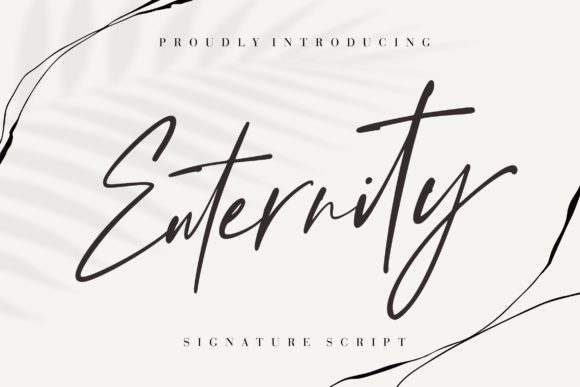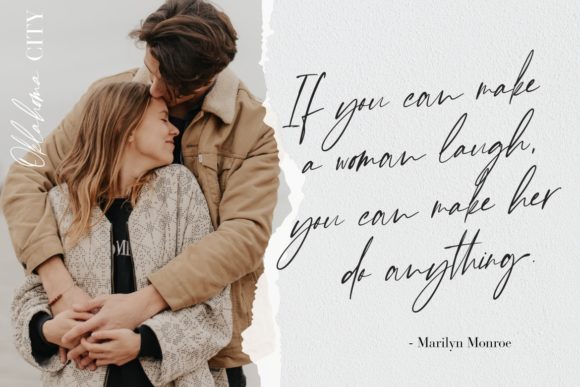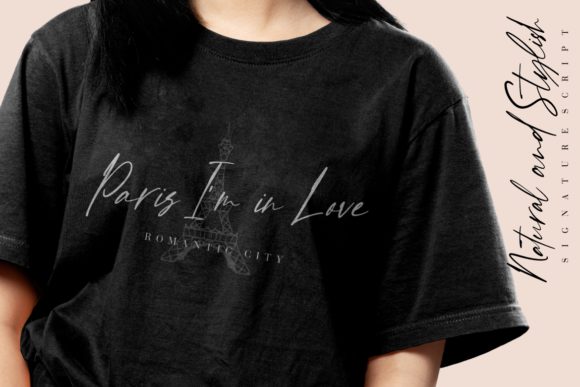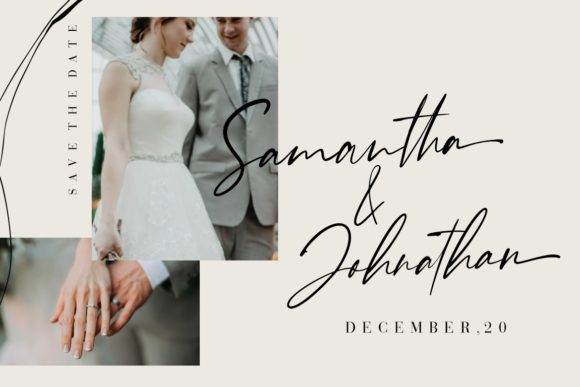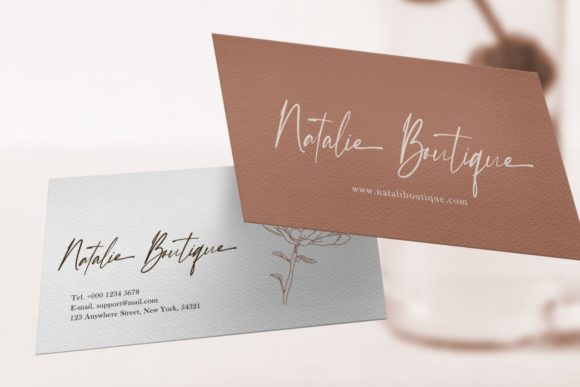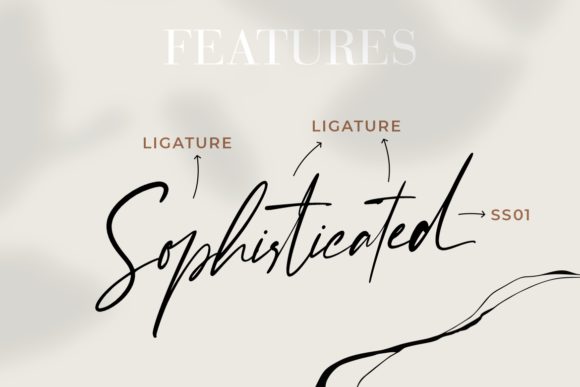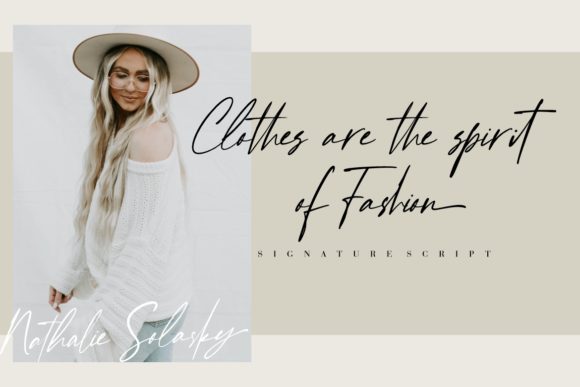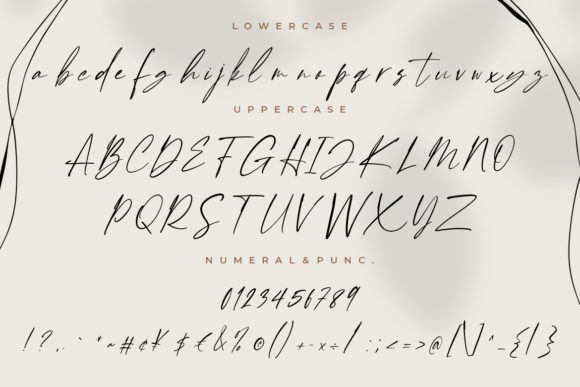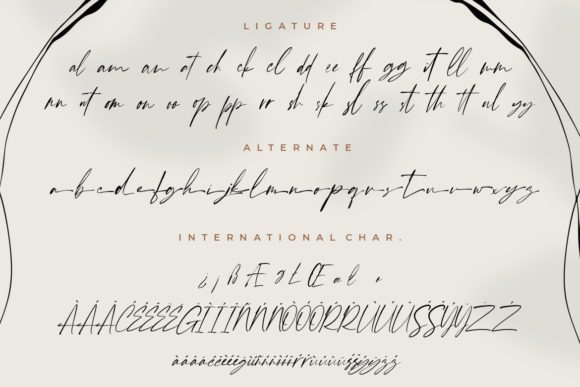
Enternity Font
Enternity is a luxurious and romantic calligraphy font that exudes elegance and sophistication. With its clean, thin, and smooth lines, this font brings a sense of refinement to any design project. Whether you’re working on branding, invitations, posters, or any other creative endeavor, Enternity is sure to make a lasting impression.
The font’s PUA encoding ensures easy access to all the glyphs and swashes it offers. This means you have full control over the various decorative elements and alternate characters, allowing you to customize and embellish your designs with ease. Whether you want to add flourishes, swashes, or other artistic touches, Enternity provides the flexibility to make your designs truly unique.
The clean and thin strokes of Enternity give it a modern and sophisticated look. It works beautifully in luxury branding, adding a touch of elegance to logos, packaging, and other visual elements. Additionally, Enternity is a popular choice for wedding invitations and stationery, as it conveys a sense of romance and refinement.
When used in posters or social media graphics, Enternity’s clean and smooth vibe creates a captivating visual experience. Its legibility and graceful appearance make it suitable for a wide range of design applications. From elegant headlines to delicate details, Enternity adds a touch of class to your designs.
In summary, Enternity is a luxury romantic calligraphy font with a clean, thin, and smooth vibe. Its PUA encoding allows easy access to a wide range of glyphs and swashes, enabling you to customize your designs with decorative elements. Whether for branding, invitations, posters, or social media, Enternity brings elegance and sophistication to any project.